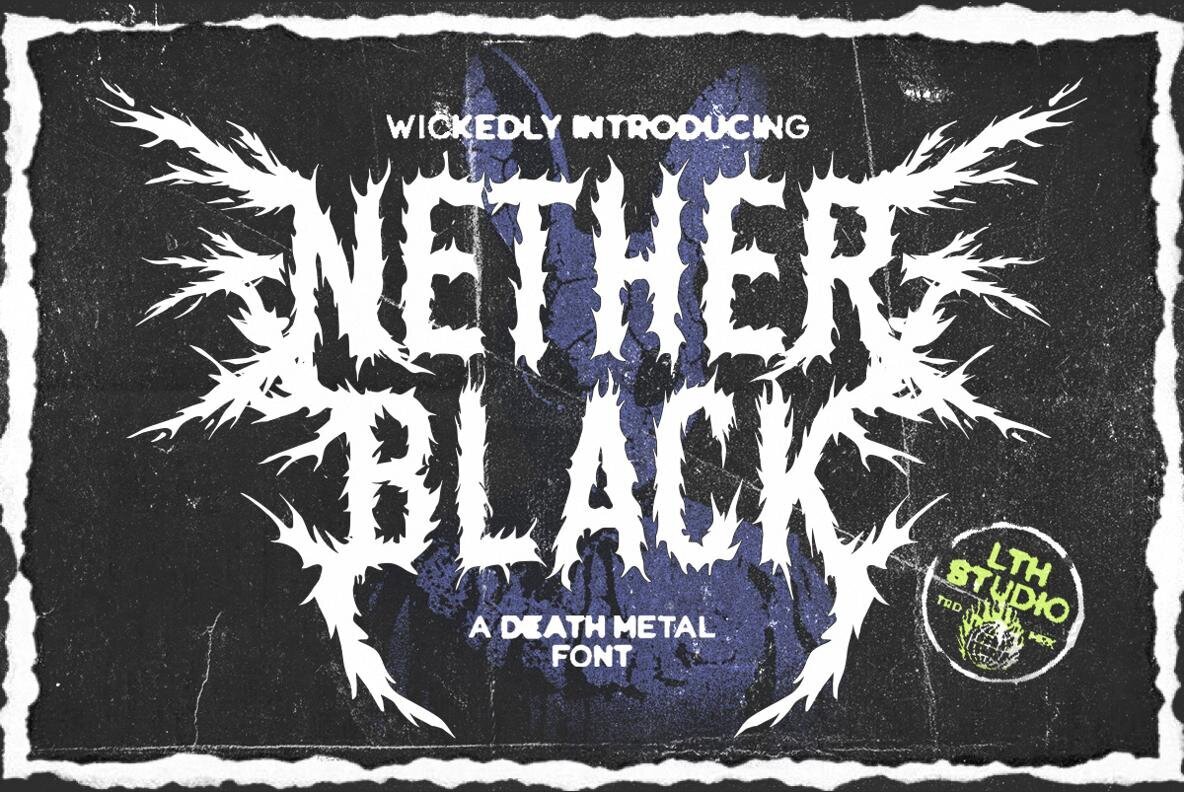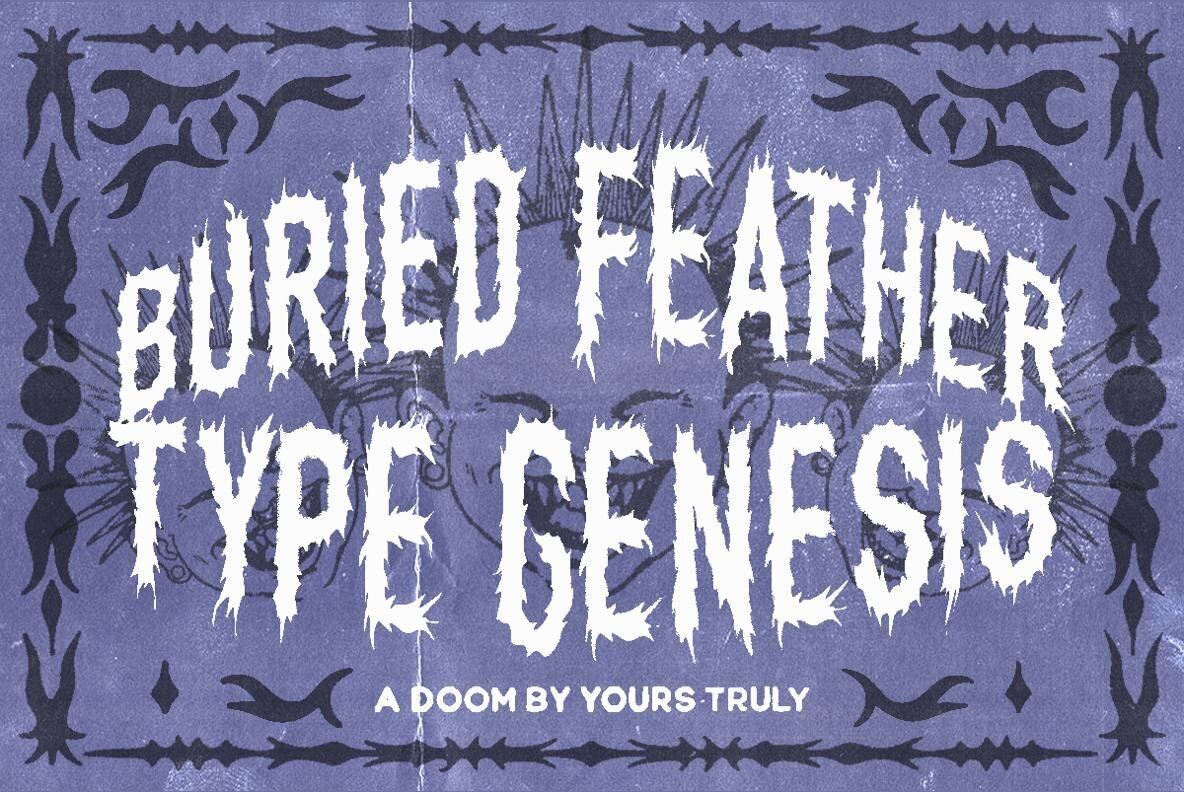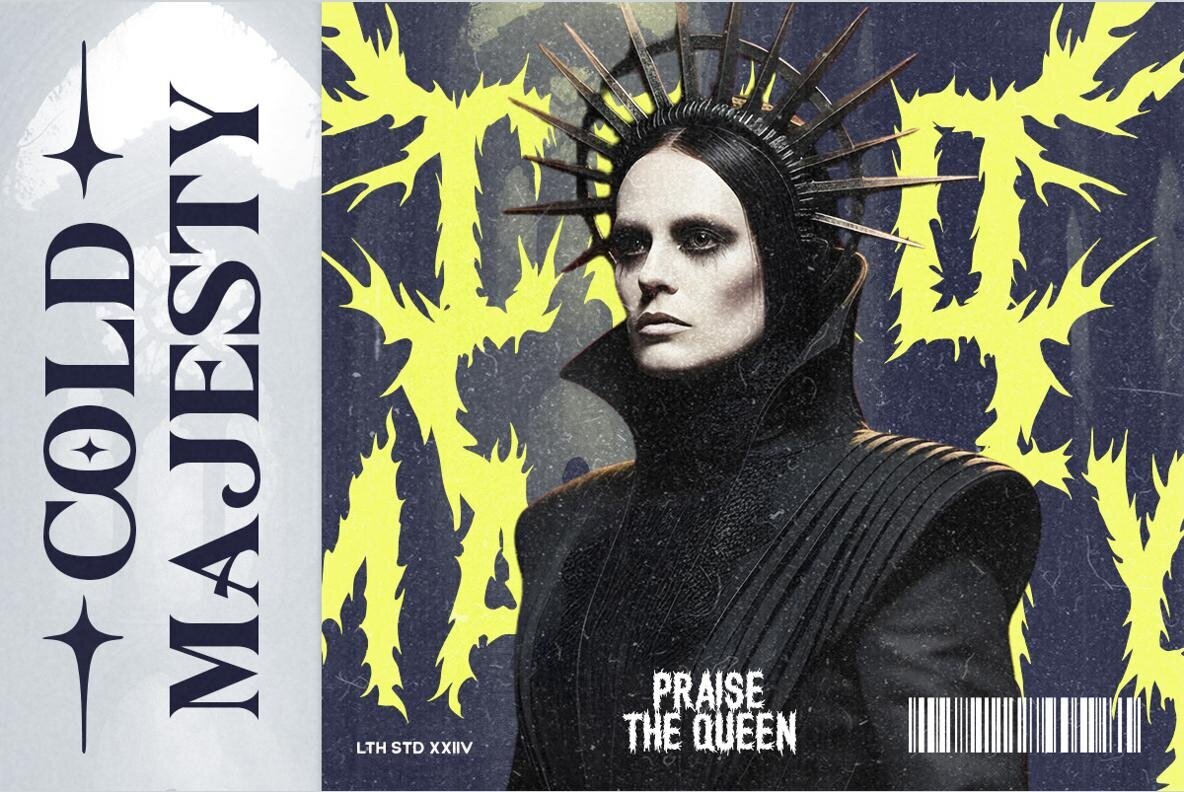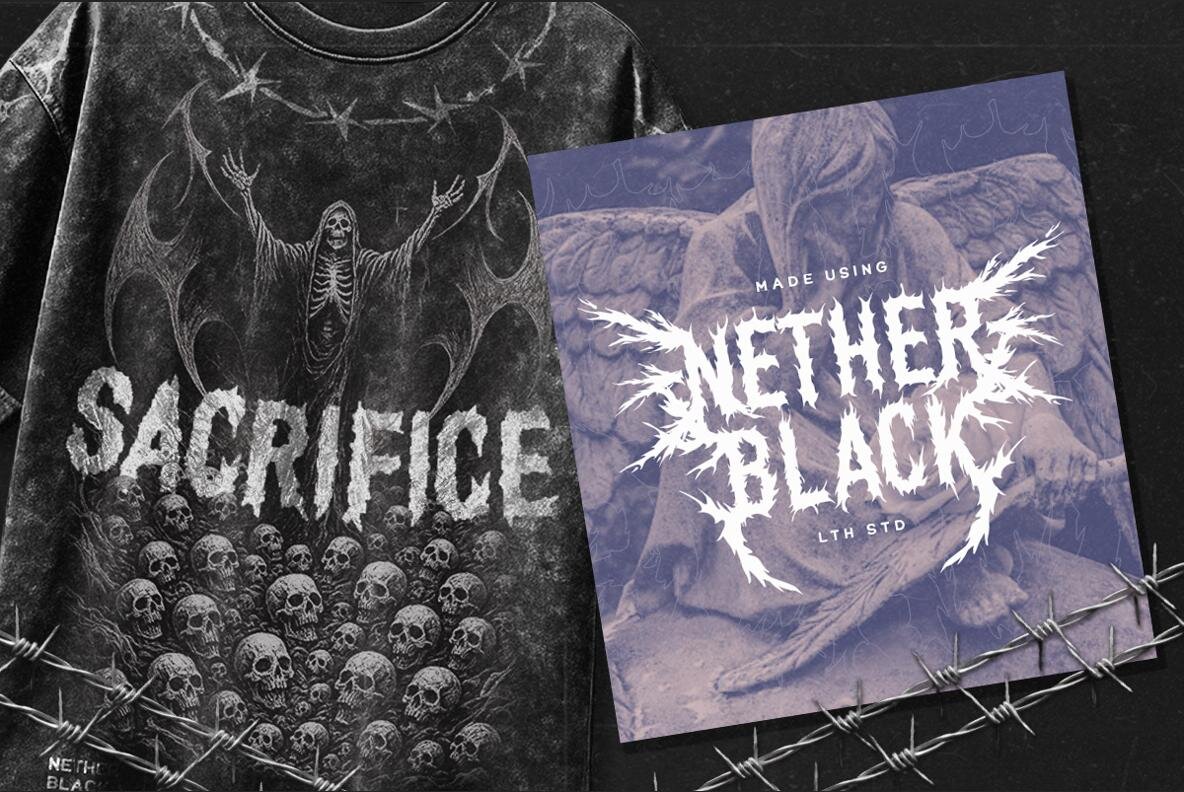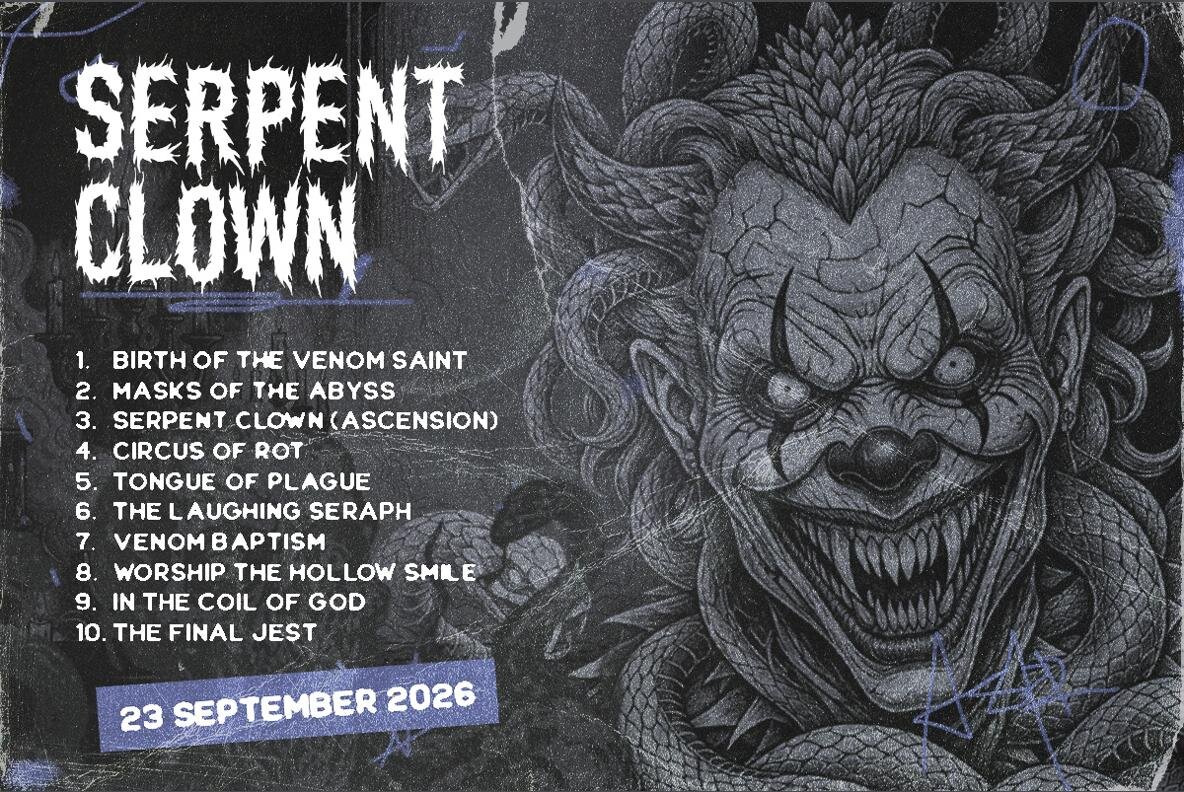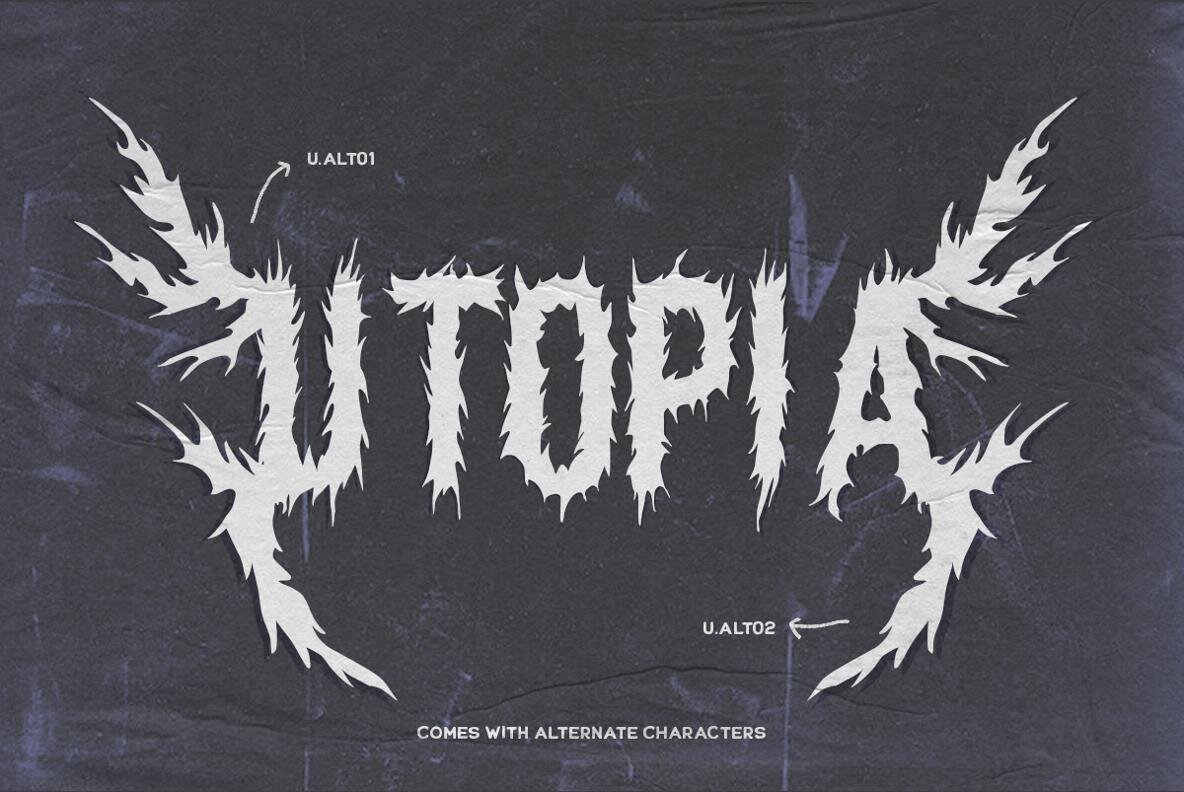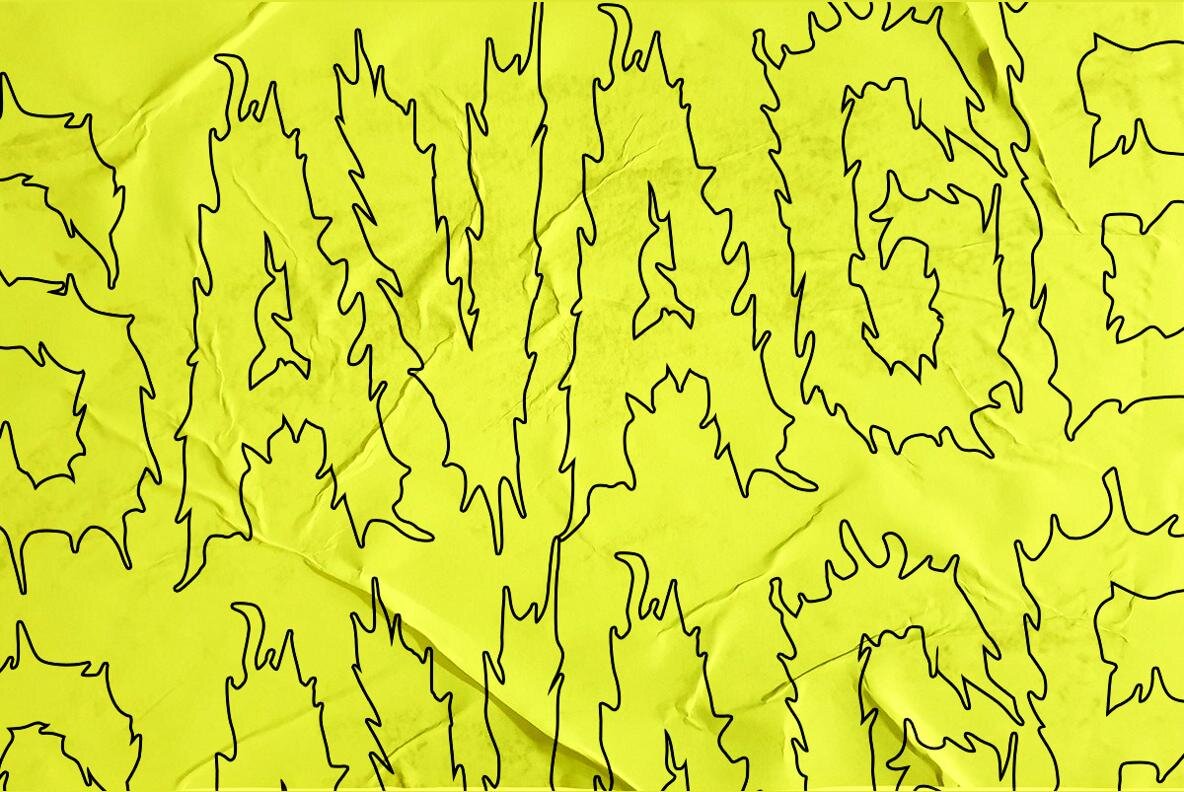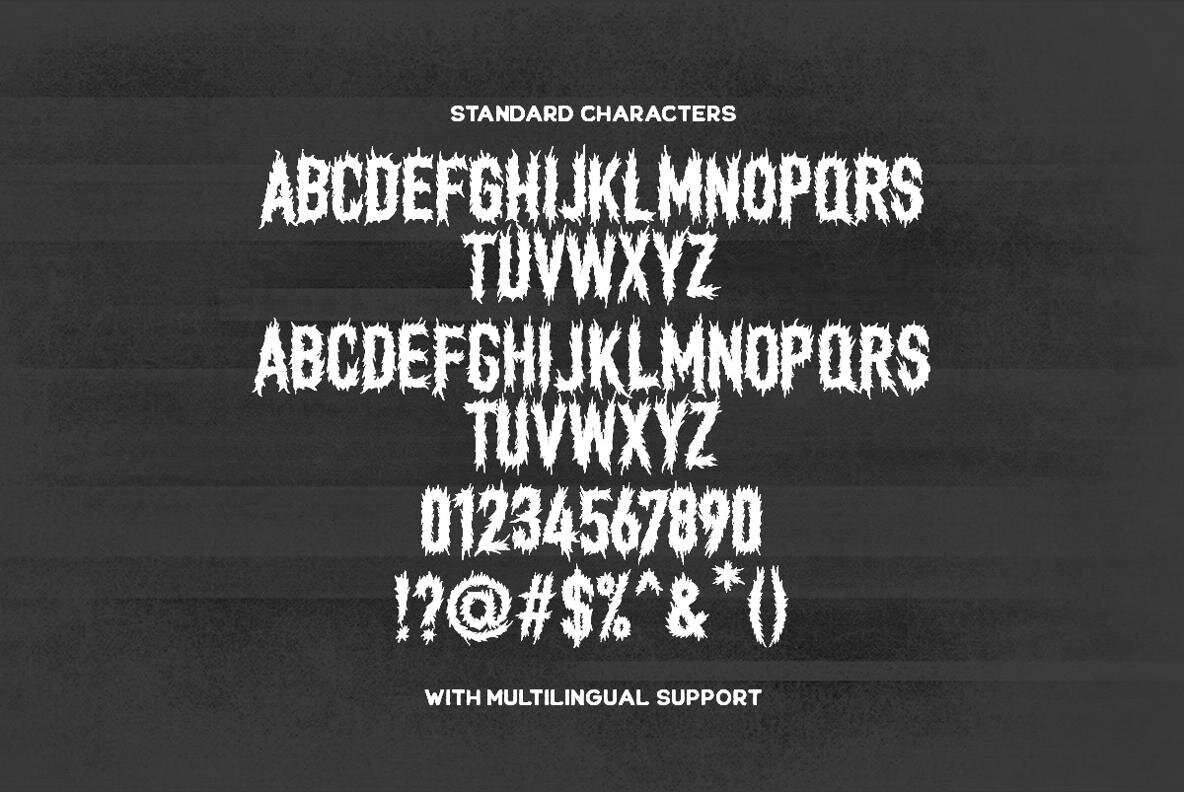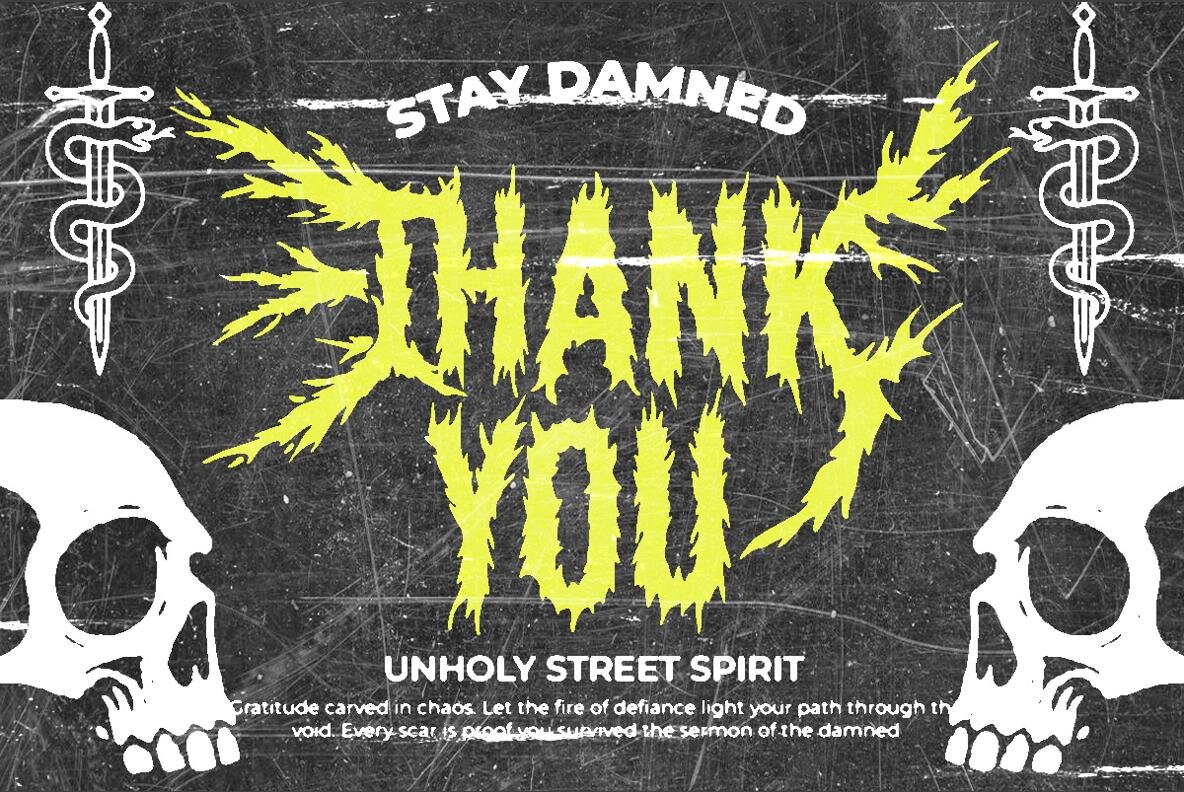
Nether Black Font
Nether Black Regular
Nether Black channels the raw essence of death metal with sharp, thorn-like letterforms and a distressed texture. With every glyph, it conveys unrestrained intensity—making it ideal for album covers, horror posters, and bold visual identities. The font’s jagged structure infuses projects with a rebellious and sinister underground vibe, reflecting extreme music’s uncompromised spirit. This font goes beyond decoration, capturing the dark edge of unfiltered artistic expression. Its aggressive design commands attention, making it the go-to choice for creatives aiming to embody chaos and ferocity in their work.Nether Black: Fierce Death Metal Font